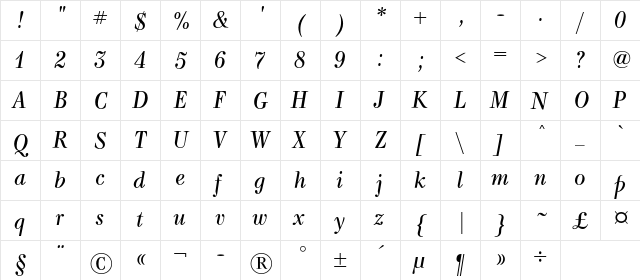
KuzanyanC Italic
Design Context for KuzanyanC Typeface
KuzanyanC takes a measured approach to typography — its balanced proportions and neutral character make it a reliable workhorse for both digital and print work. The slanted form adds forward momentum and visual energy.
Pro Tip: Try KuzanyanC for annotation and caption copy alongside an upright companion — the contrast in angle creates a dynamic but ordered typographic system.